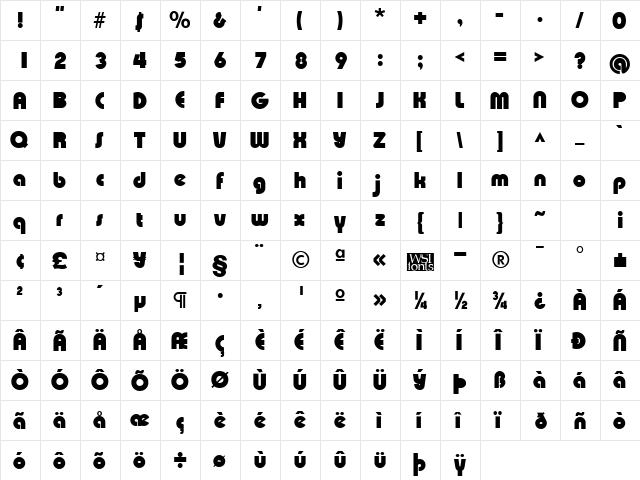
XpressiveBlack Regular
Design Context for XpressiveBlack Typeface
XpressiveBlack is a composed and adaptable typeface that performs quietly and consistently across a wide range of design contexts.
Pro Tip: Use XpressiveBlack in both headline and body roles to test its range before committing to a single application.